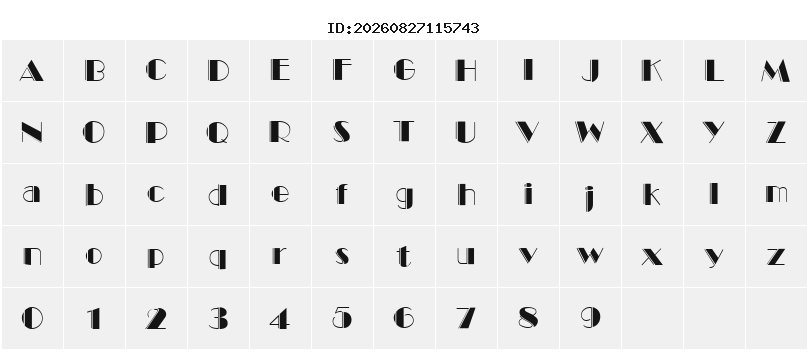
About 219-CAI978.ttf
219-CAI978.ttf is a modern, elegant sans-serif font designed for ultimate readability and visual harmony. Perfect for branding, headlines, web design, and print materials.